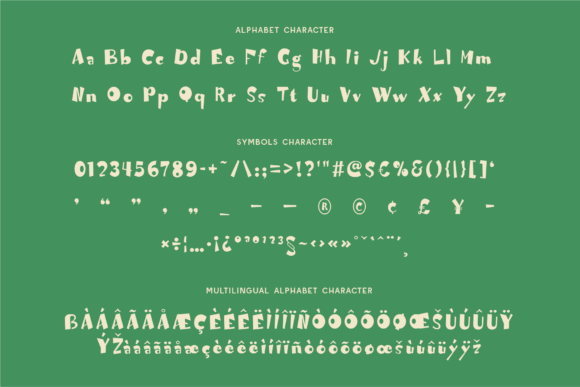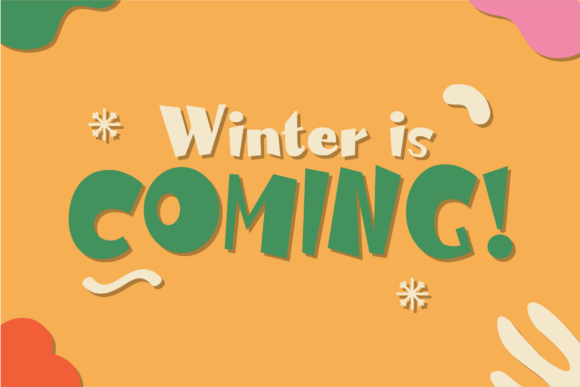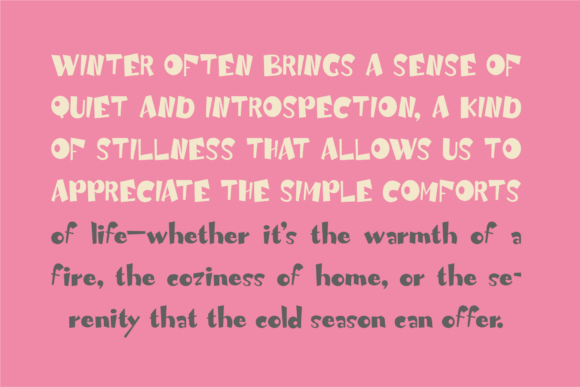
Introduction to Elves Delight Font
Elves Delight is a whimsical decorative display font bursting with playful charm and holiday cheer.
Perfectly embodying the spirit of Christmas, this font radiates joy through its quirky shapes and lively forms Each letter feels like a unique ornament, designed to add a fun, imaginative touch to your festive projects.